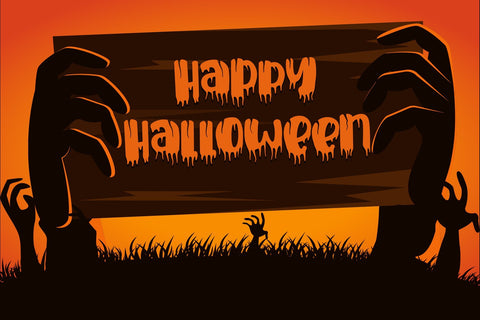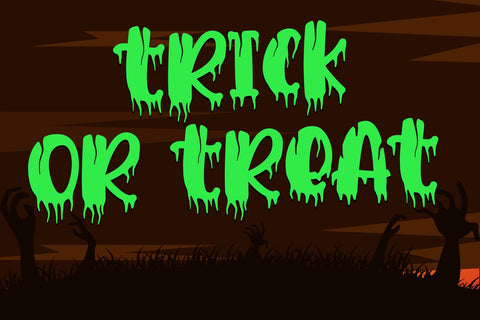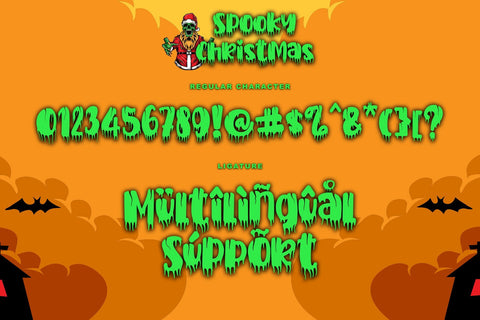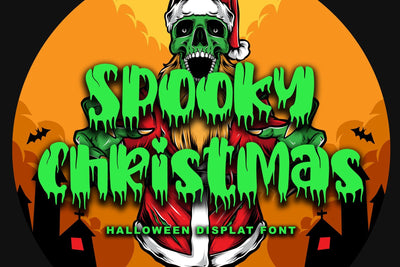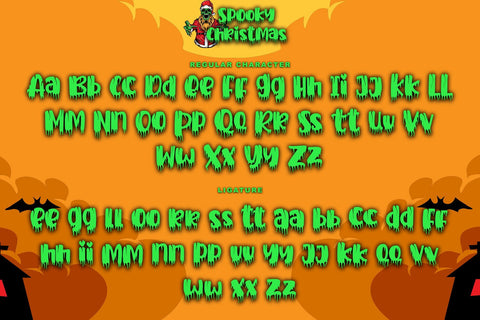
Spooky Christmas
Spooky Christmas is an incredibly unique and spooky display font. Add this font to your favorite Halloween-themed ideas: invitations, banner, logo, app game scary or horror, and notice how it makes them come alive! Spooky Christmas is PUA encoded which means you can access all of the glyphs and swashes with ease!